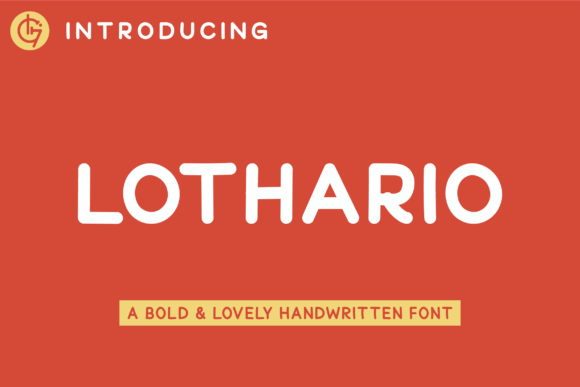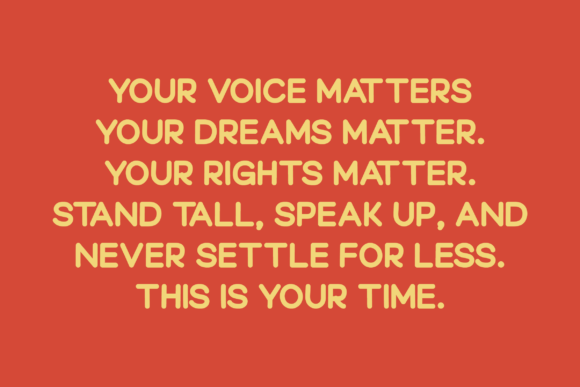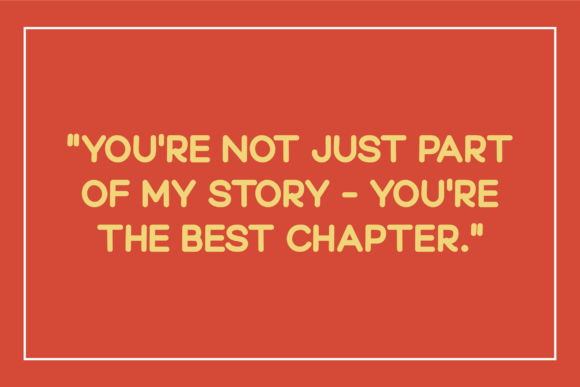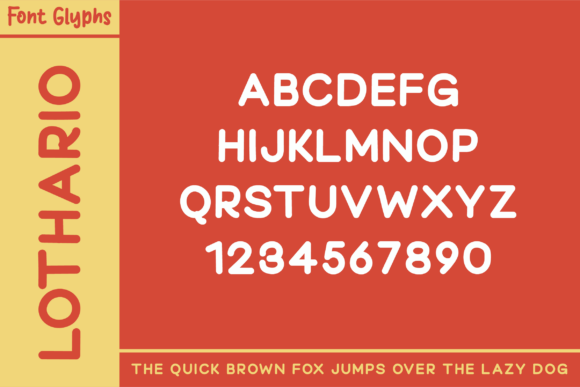
Lothario Font: Bold Handwritten Font for Authentic Branding & DIY Projects
About the Lothario Font
From logos to headlines, the Lothario Font is the perfect choice for making a lasting impression. Make an impact with Lothario, a handwritten font that combines a strong, bold presence with a charming, personal touch. Ideal for branding, packaging, social media, and print, its unique style adds warmth and authenticity to any design. Achieve a professional yet approachable aesthetic with it.
Lothario excels in headlines, short text blocks, and logos where its bold character makes a strong statement. It’s perfect for branding projects aiming for a confident yet approachable feel, particularly those in the food, beverage, or lifestyle sectors. Avoid using Lothario for large bodies of text or UI elements; its handwritten nature can hinder readability in extended use.
Pairing Lothario effectively requires a complementary font to balance its boldness. A clean sans-serif like Montserrat or a geometric sans-serif like Futura would provide a modern contrast. For a warmer feel, consider pairing it with a classic serif such as Garamond or a slightly more informal script like Pacifico, depending on the desired level of formality.
Lothario’s core personality is confident and friendly, conveying both strength and approachability. This makes it suitable for brands that want to project an image of authenticity and personality without sacrificing professionalism.
Lothario Font Usage Examples
Lothario Font Example